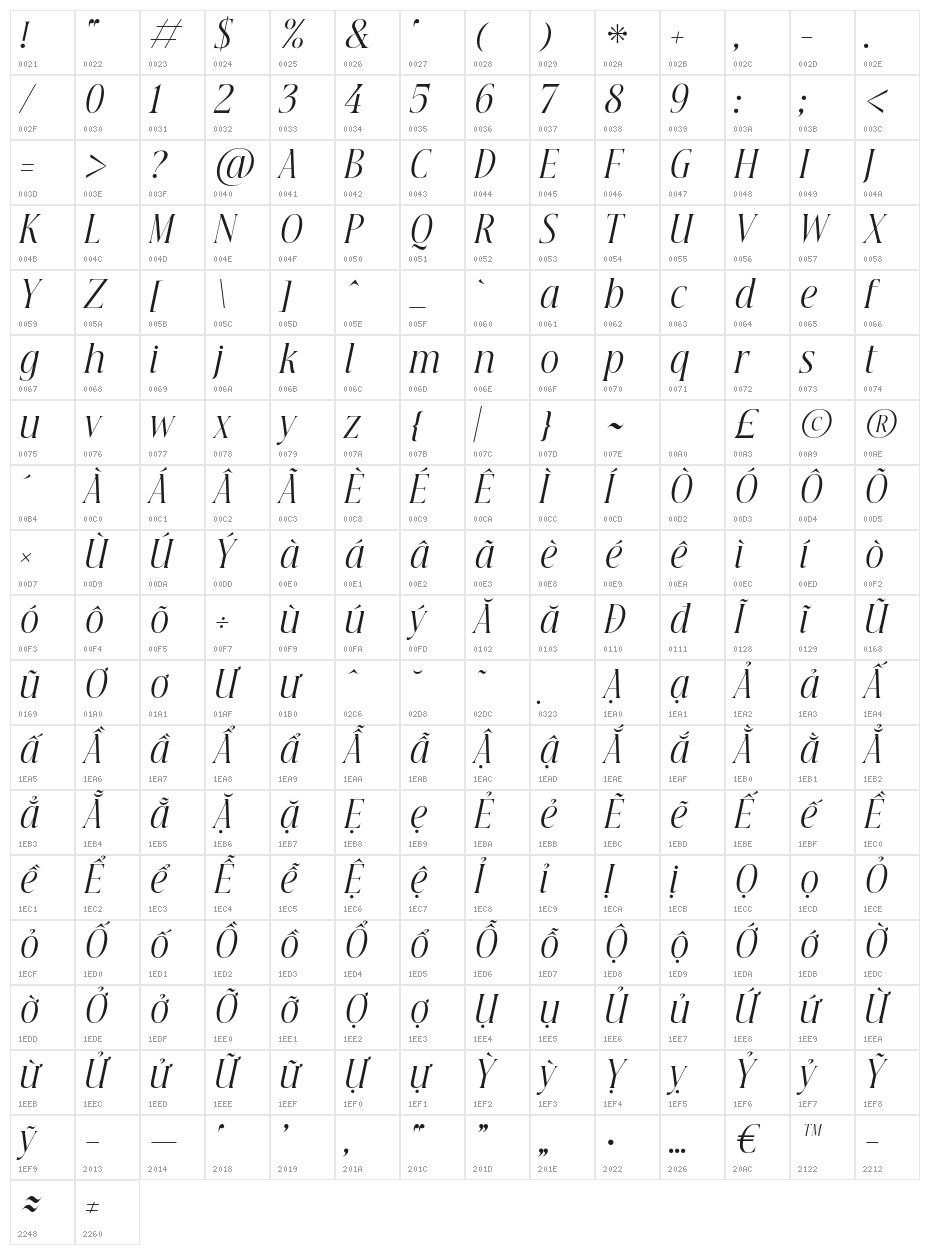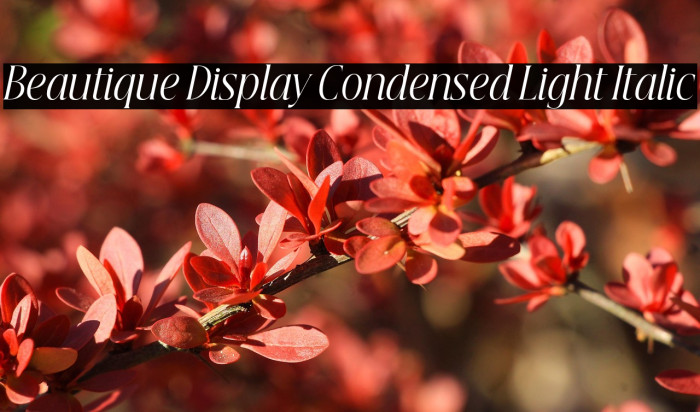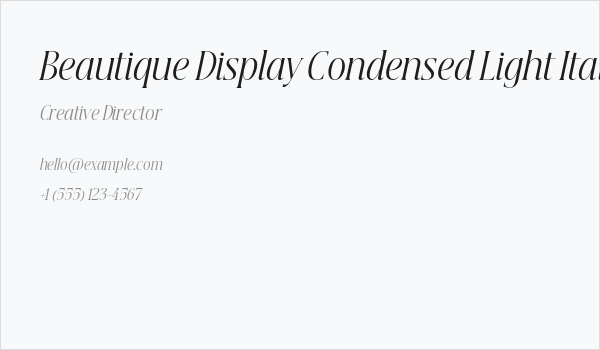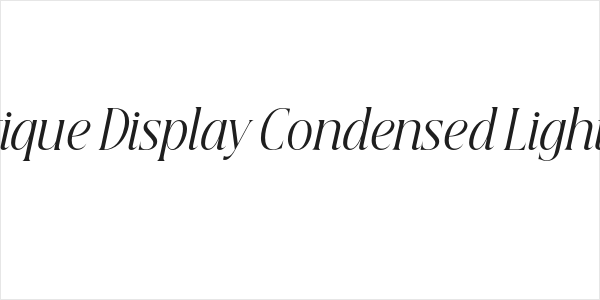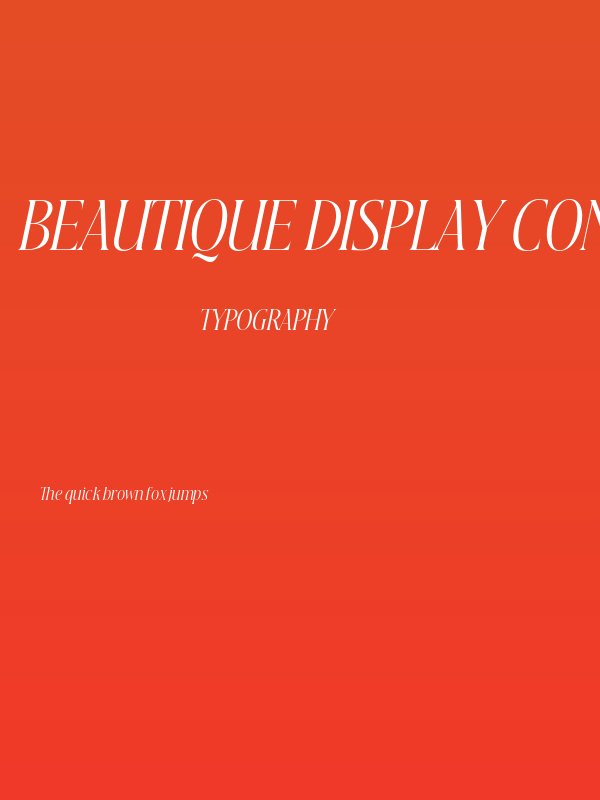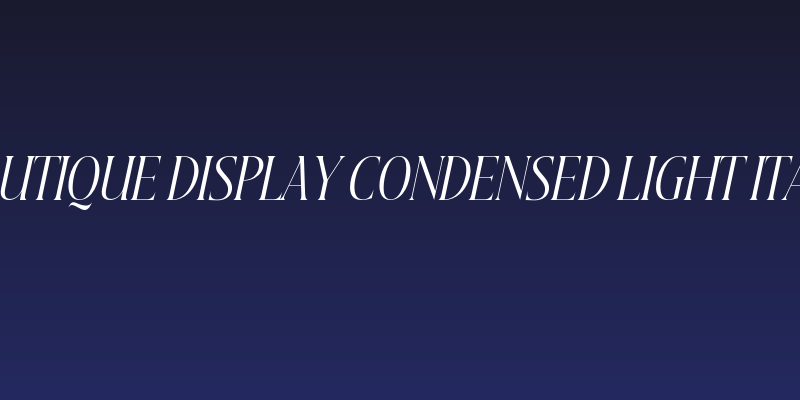
Beautique Display Condensed Light Italic Font
Beautique Display Condensed Light Italic Description
This elegant typeface features a refined and sophisticated design with a condensed structure that gives it a sleek appearance. The light weight of the strokes adds a delicate touch, while the italic style introduces a sense of movement and fluidity. The characters are well-proportioned, with a slight slant that enhances its graceful look. The font maintains a high level of legibility, making it suitable for both display and text purposes. The contrast between thick and thin strokes is moderate, providing a balanced and harmonious visual appeal. Its overall style is modern yet timeless, making it versatile for various design applications.
| Proposed Projects | Ideal for fashion magazines, luxury branding, wedding invitations, and elegant editorial layouts. |